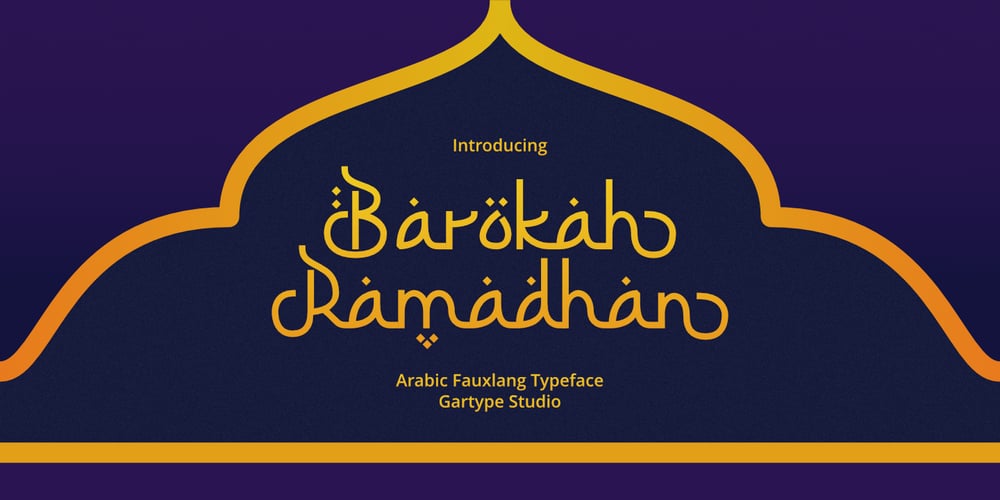
Barokah Ramadhan Font Family was designed by Gumilang Anggara Ruslan and published by Gartype Studio. Barokah Ramadhan contains 1 styles and family package options. Barokah Ramadhan is script font inspired by arabic alphabet / calligraphy,come with alternate and multilingual features.This font very suitable for your arabic stylish design.